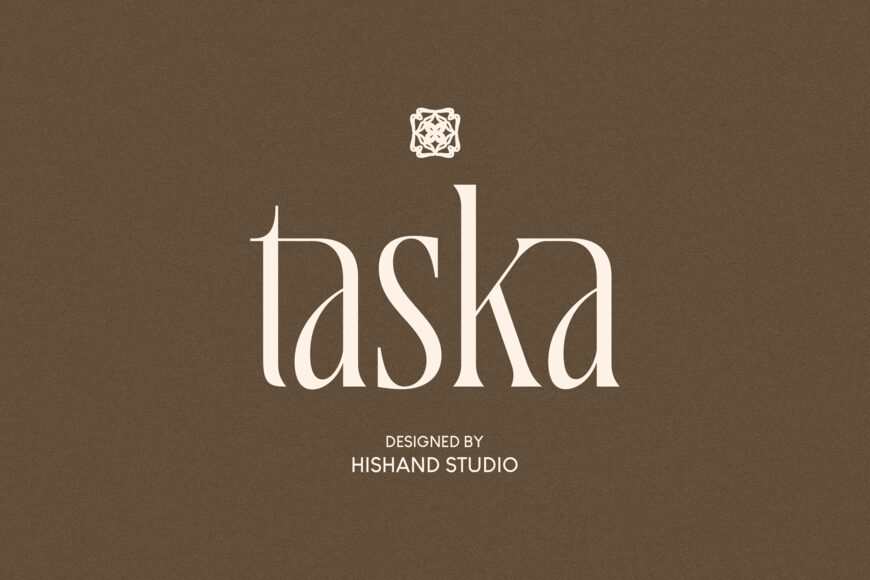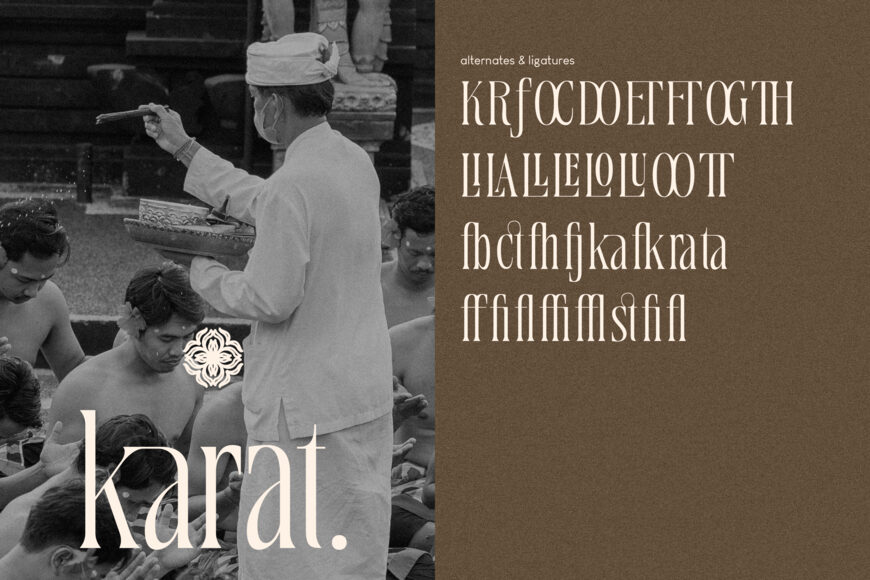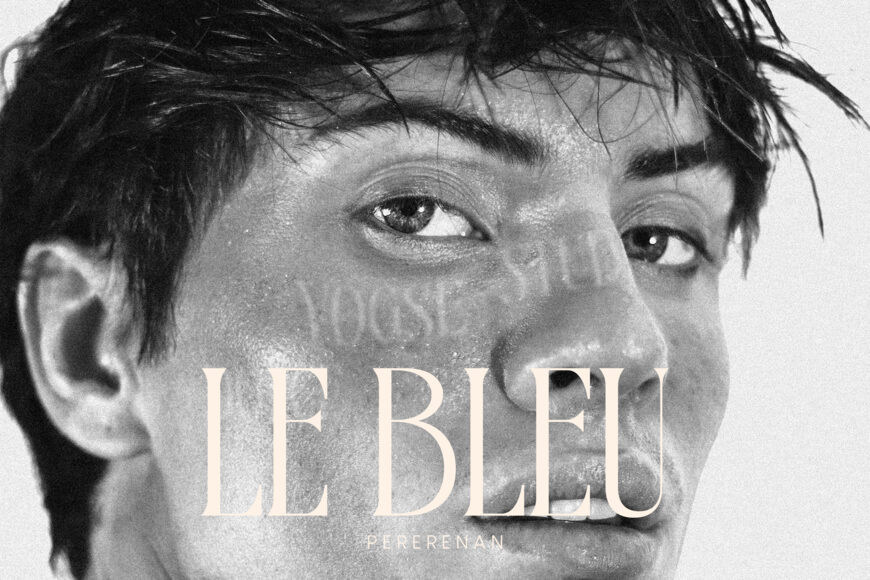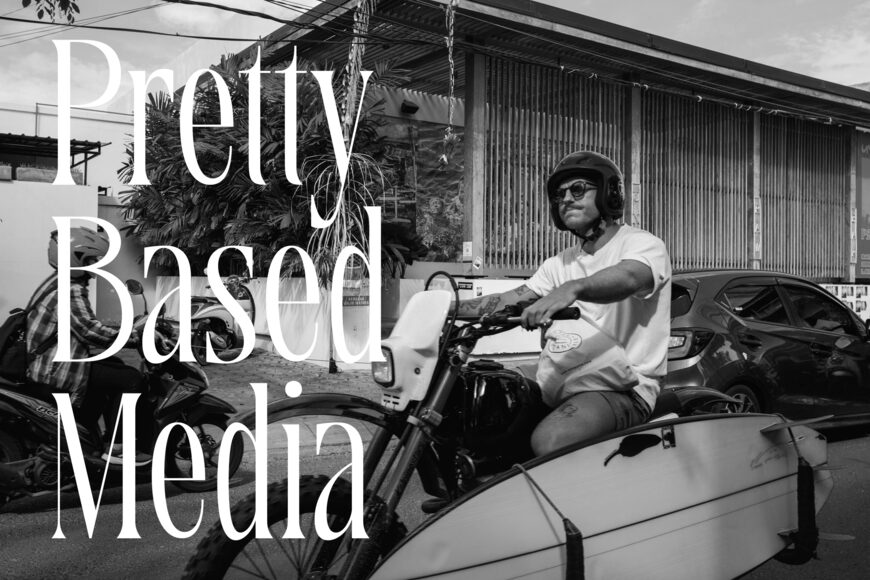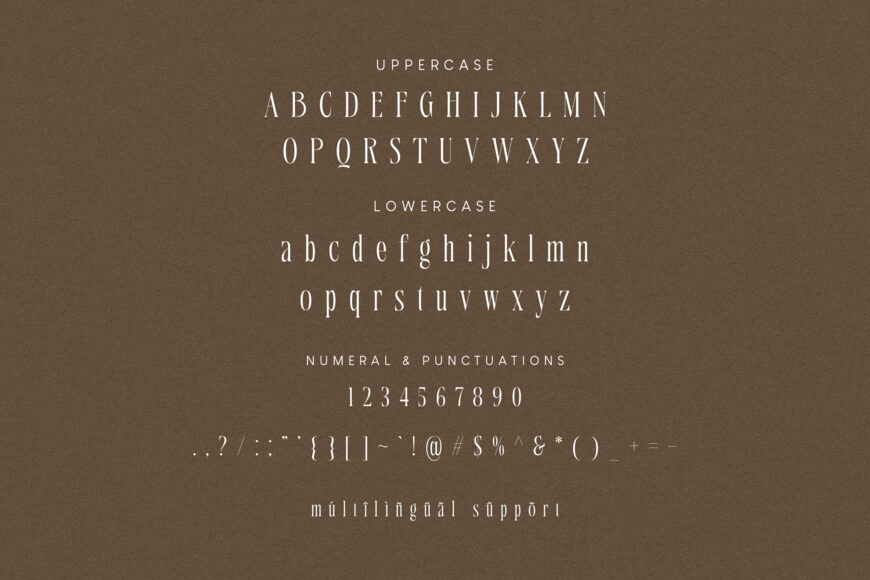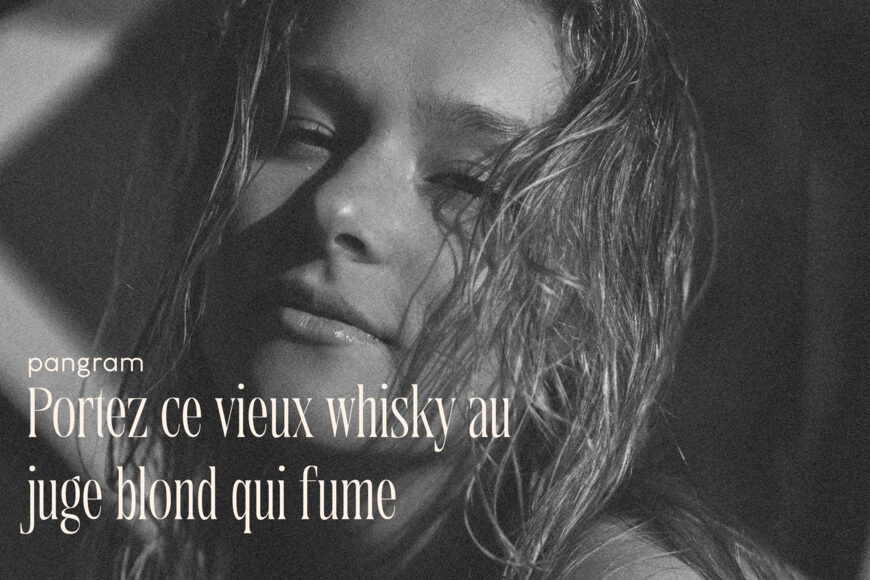
Taska Font
Taska is a serif display font crafted for brands that speak in quiet confidence. Every curve and stroke carries a refined elegance, balancing sharp contrast with soft, flowing terminals that give each letter a sense of timeless sophistication. It draws from classic serif structure while introducing a modern sense of proportion, making it feel both established and current.
Designed with high contrast strokes and delicate serifs, Taska brings a luxurious, editorial feel to any project. It’s the kind of typeface that turns a simple logotype into a statement, perfect for fashion houses, beauty brands, boutique hotels, and premium packaging where every detail matters. The thin hairlines paired with bold main strokes create visual tension that draws the eye without overwhelming the composition.